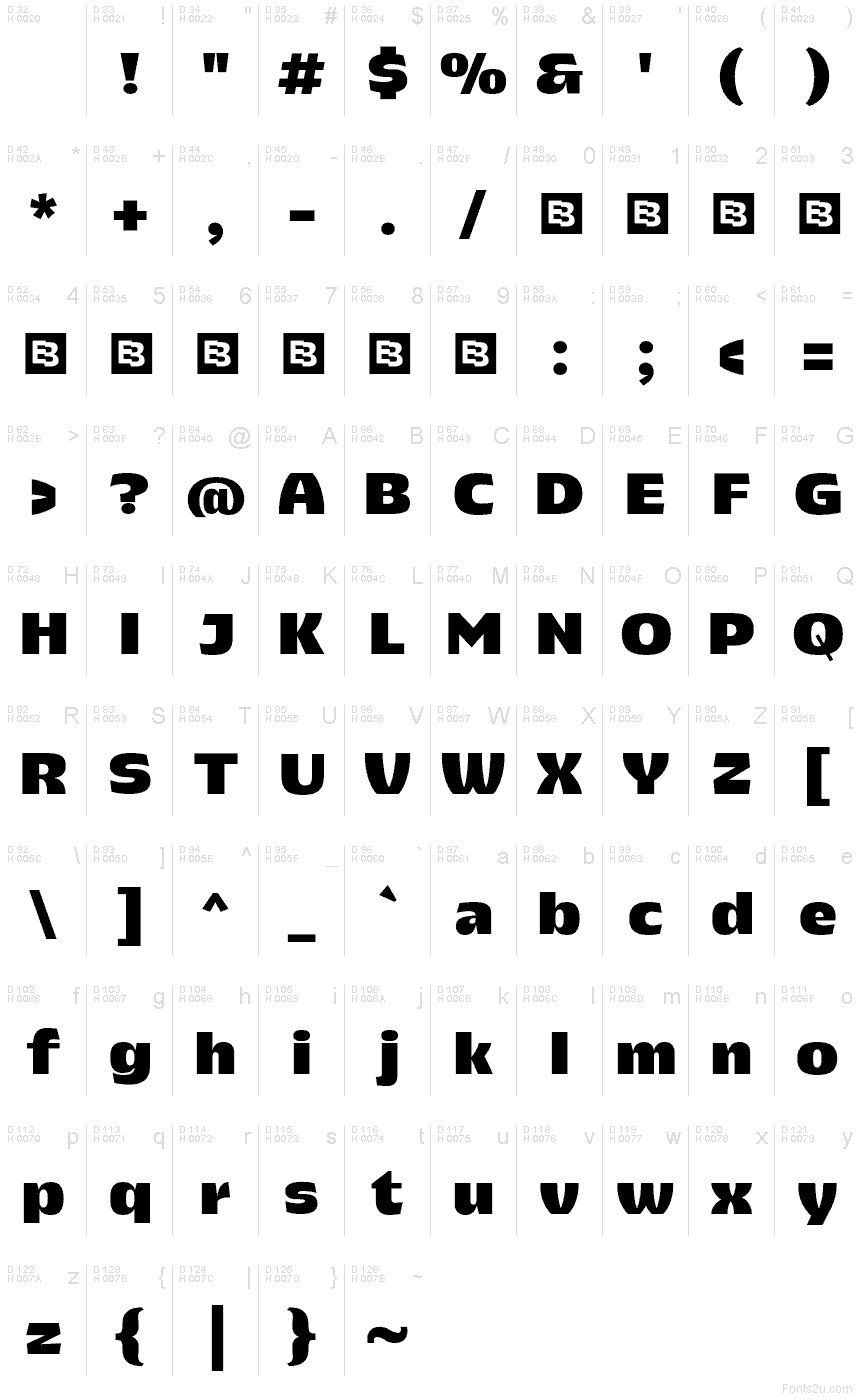
Pocas Trial Black
Pocas Black font by Eko Bimantara is a free bold sans serif typeface that hits like a stamp and reads like a smile. Its chunky, tightly packed forms and soft curves create a solid block of ink that feels confident yet approachable, like signage painted thick on a storefront window. Letters swell with weight but stay clean and legible, giving you that big, shouty presence without turning clumsy or cartoonish.
Using Pocas Black, you can anchor loud headlines, packaging, posters, event titles, social graphics, and bold logo wordmarks with a single, unified voice. This free font thrives at large sizes, where its heavy shapes and snug spacing can really press against the edges of the page or screen. For supporting text, pair Pocas from the same family or a light geometric sans set much smaller to let Pocas Black do the heavy lifting.